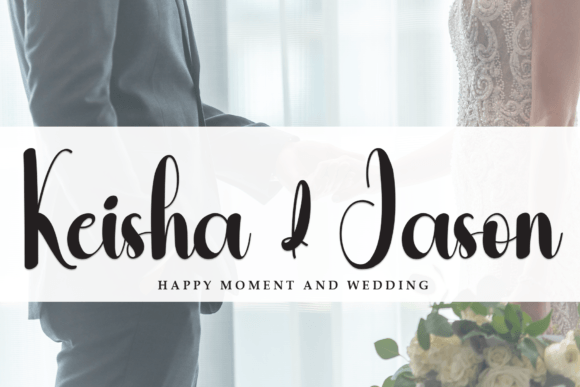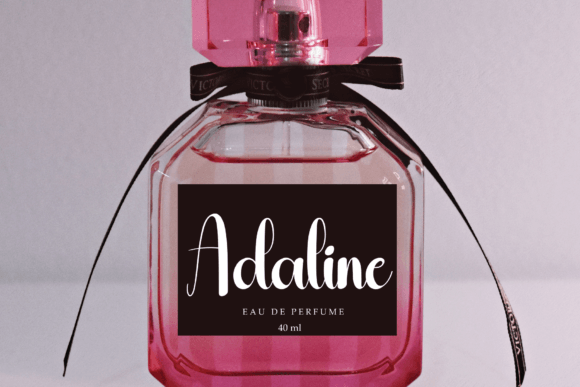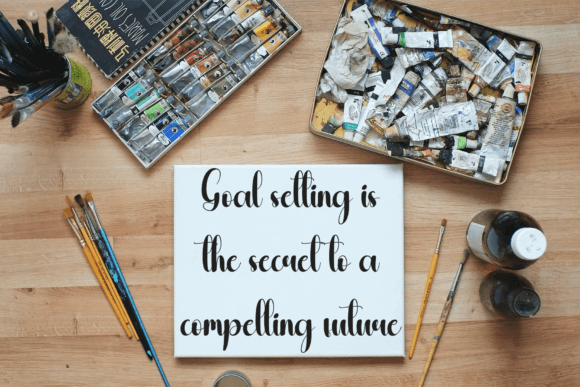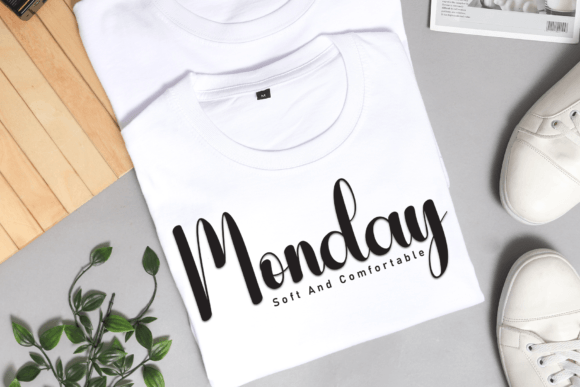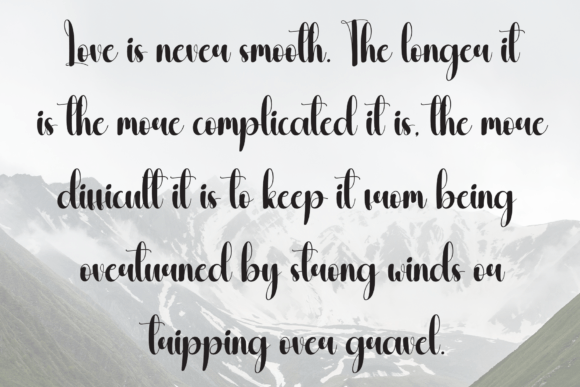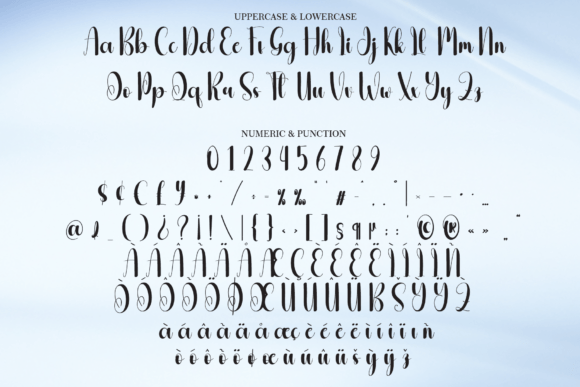
Introduction to Maturity Font
Have you ever found yourself lost in a sea of perfect calligraphy, wishing you could add a personal touch to your creative project? I know I have! For me, it was while planning my best friend’s wedding – I wanted to create the perfect invitation, but all the beautiful fonts seemed too formal. That’s when I stumbled upon the Maturity Font, a sweet and friendly handwritten font that instantly made me smile.
As a designer, you know how valuable it is to have a reliable design resource that can elevate your work to the next level. The Maturity Font is a high-quality addition to any design arsenal, perfect for adding a touch of whimsy to your creative projects. And the best part? It’s available for free download, making it an accessible and versatile tool for designers of all levels.
Maturity Font
- High-quality design resource with a unique, modern aesthetic.
- Unique characteristics include bold lines, subtle texture, and a mix of geometric and organic shapes.
- Perfect for designers and artists looking for a versatile font to elevate their creative project.
Honest Review: Maturity Font
As a designer, I’m always on the lookout for high-quality fonts that can elevate my creative projects. Recently, I had the chance to try out the Maturity Font, and I’m excited to share my honest review with you.
- Unique and modern design aesthetic
- High-quality font with smooth lines and curves
- Transparent background, allowing for seamless integration with any design
- May not be suitable for projects requiring a bold, attention-grabbing font
- Limited character set, which may be a concern for designers working with non-English languages
Overall, I was impressed with the Maturity Font’s sleek design and versatility. While it may not be the best fit for every project, it’s definitely a great addition to any designer’s toolkit. With a free download available, it’s definitely worth checking out for your next creative project.
Common Use Cases for Maturity Font
Maturity Font is ideal for use in creative projects, such as:
– Blog posts
– Marketing materials
Yes, the Maturity Font features a transparent background option, making it ideal for creative projects that require a high level of design flexibility. This allows designers to easily integrate the font into various design elements and backgrounds.
Q: Is the Maturity Font a high-quality design resource?
Yes, the Maturity Font is a high-quality design resource, carefully crafted to provide a unique and stylish look for creative projects. Its clean and modern design makes it an excellent choice for designers seeking a premium font for their next project.